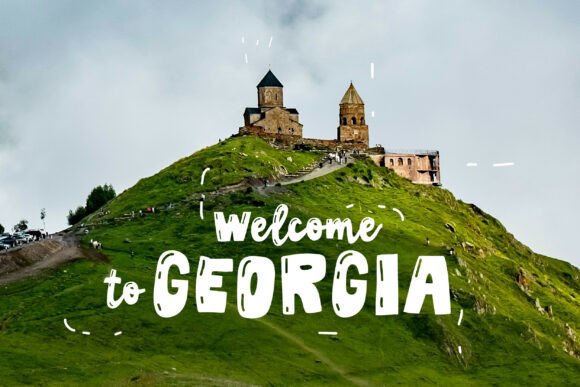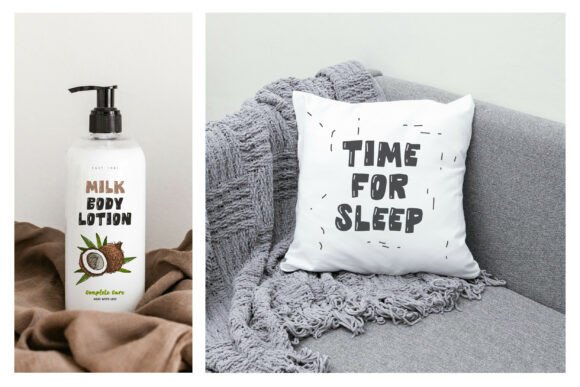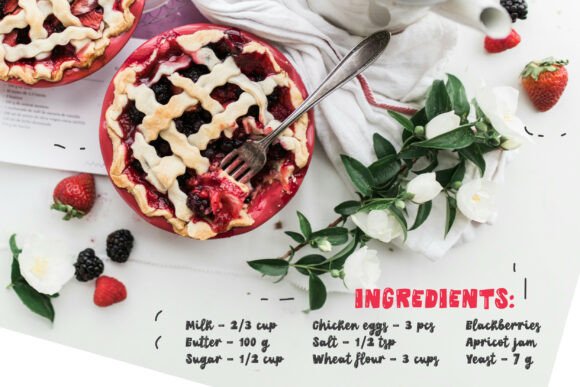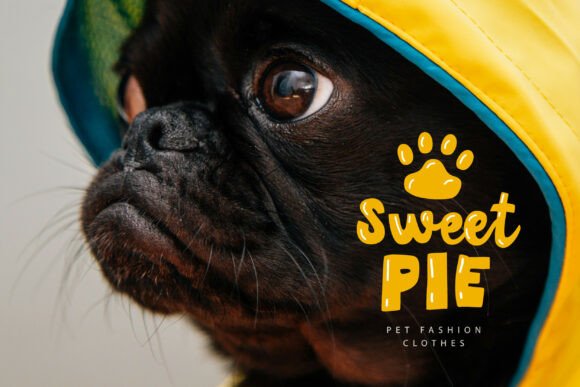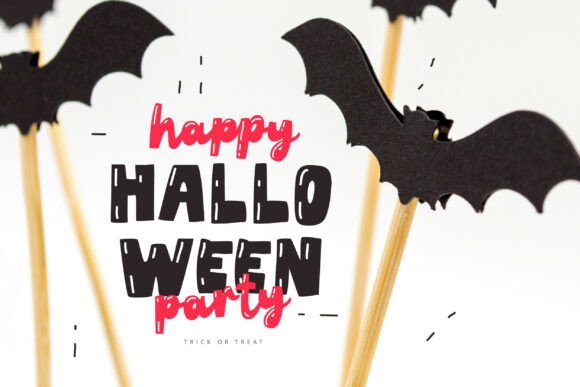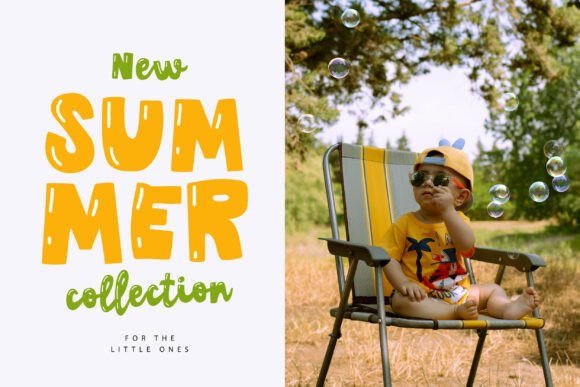
Introduction to No. 156 Font
Do you ever find yourself stuck in a design rut, searching for the perfect font to bring your creative project to life? I know I do! It’s like trying to find the missing piece of a puzzle – until it clicks, and suddenly everything falls into place. For me, that puzzle piece is often a bold, playful font that adds a touch of personality to my designs. And that’s exactly what you’ll find with No. 156 Font – a hand-drawn display font that’s bursting with energy and charm.
No. 156 Font is more than just a design resource; it’s a key to unlocking the perfect tone for your creative project. Whether you’re designing a children’s book, a summer-themed social media campaign, or a party invitation, this font is sure to bring a smile to your audience’s face. With its quirky letterforms and chunky textures, No. 156 Font is the perfect choice for designers who want to add a little extra fun and personality to their work.
- Unique design: No. 156 Font boasts a unique and modern design, perfect for adding a touch of elegance to any creative project.
Honest Review: No. 156 Font
I recently stumbled upon the No. 156 Font and was excited to give it a try. As a designer, I’m always on the lookout for high-quality design resources that can elevate my creative projects.
What works well with the No. 156 Font is its versatility. It’s available for free download and comes in a range of styles, making it perfect for various design applications. The font also features a transparent background, which is a huge plus for designers who value simplicity and flexibility.
However, I did encounter a few limitations with the No. 156 Font. The font’s legibility can be a bit inconsistent at smaller font sizes, which may be a concern for designers working on projects with tight text constraints.
- ⚠️ Legibility can be inconsistent at smaller font sizes
- ⚠️ Limited support for non-Latin scripts
Overall, I’d say the No. 156 Font is a solid addition to any designer’s toolkit. While it may have some limitations, its high-quality design and versatility make it a valuable resource for any creative project.
Tips for Getting the Most Out of No. 156 Font
Experiment with different font sizes and colors to create a unique and eye-catching design.
No. 156 Font is ideal for:
– Creative projects, such as posters, flyers, and brochures.
– Design resources, such as logos and branding materials.